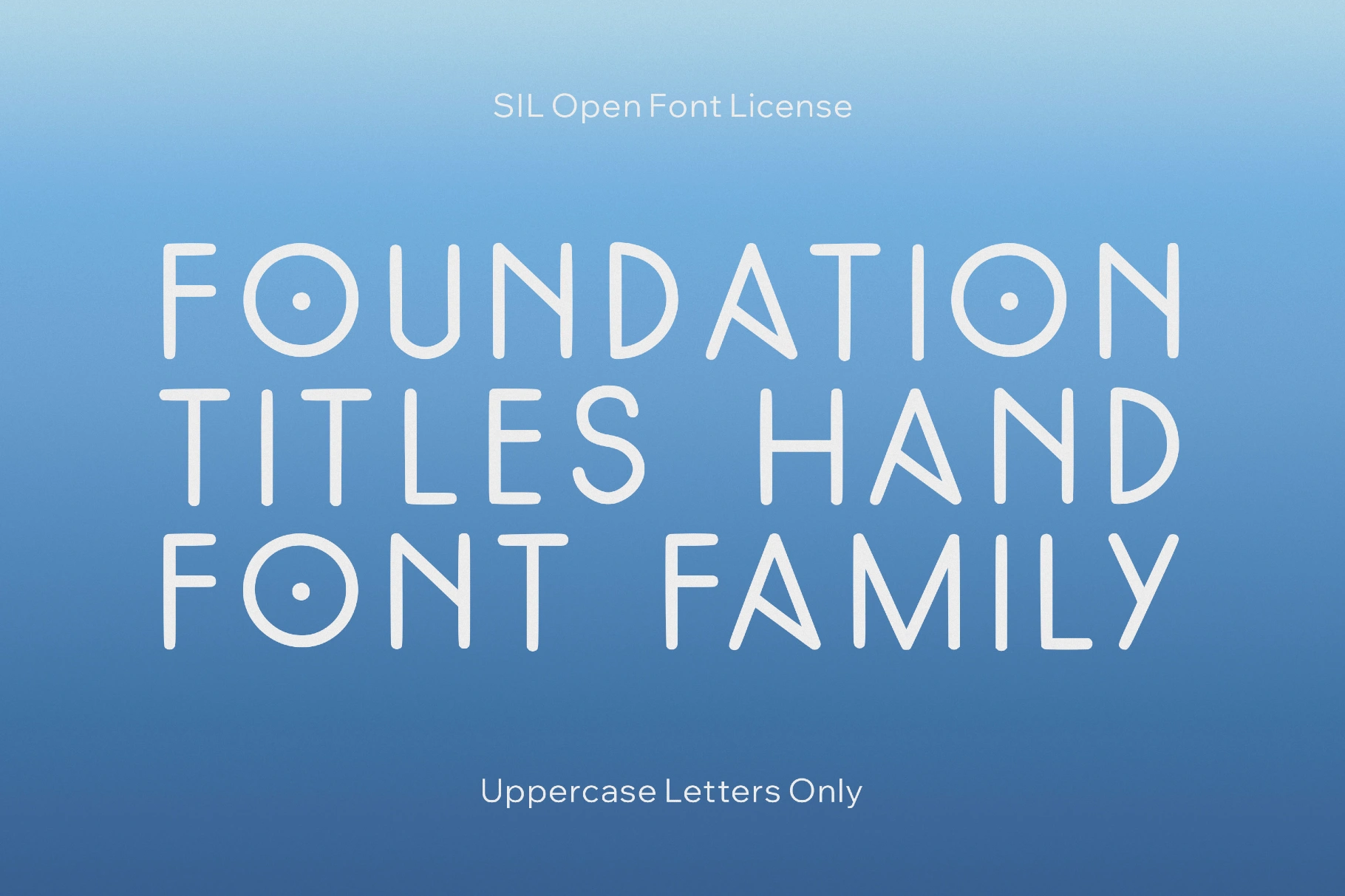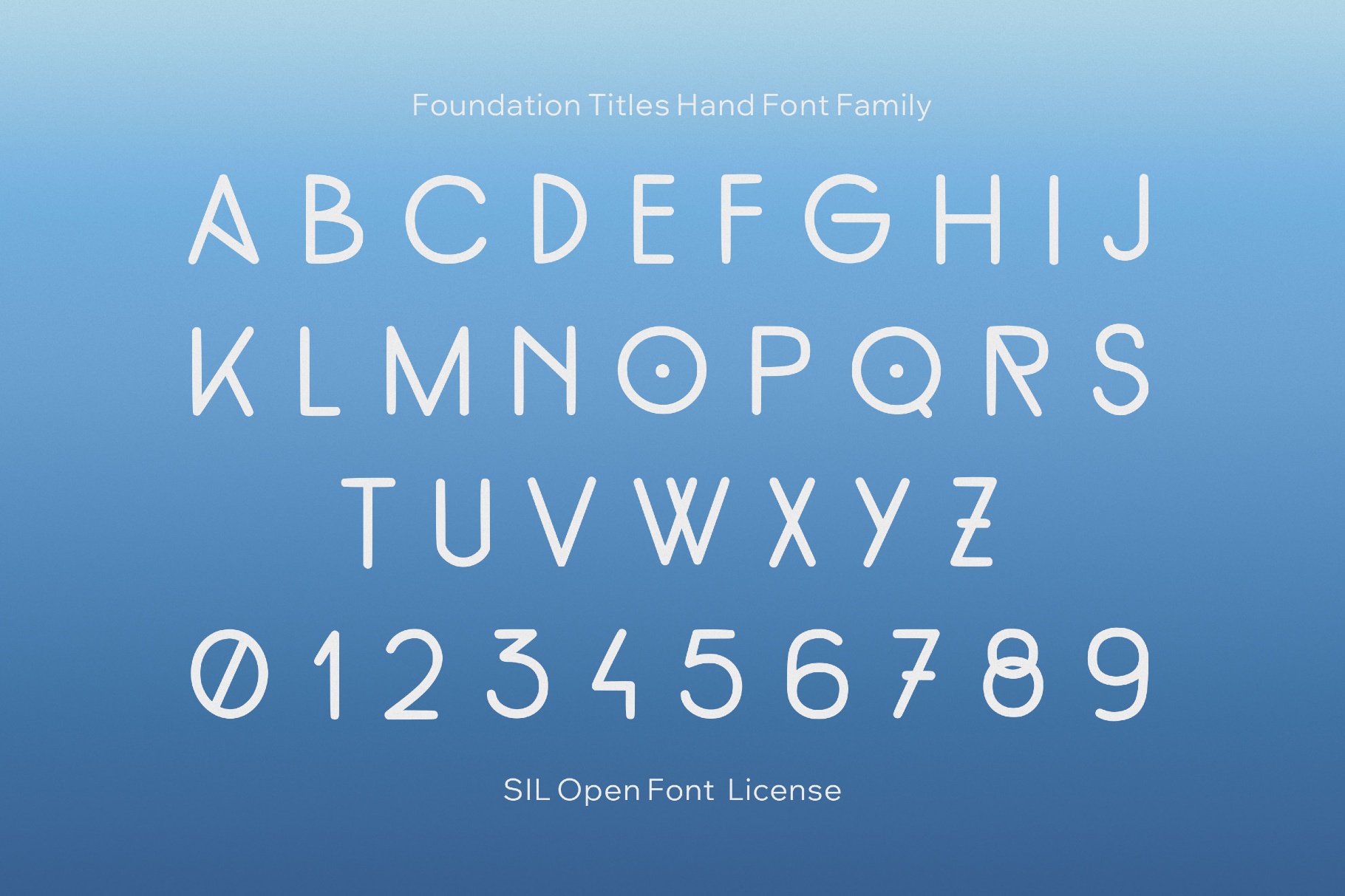
FoundationTitlesHand Font Family
FoundationTitlesHand recalls the lettering of speculative paperback covers and hand-rendered studio title boards, with monoline strokes and rounded forms. The vibe of outdated space typography makes it appealing for poster headlines, book jackets, title cards, editorial openers, album artwork, brand marks, gallery graphics, packaging, and identity work.